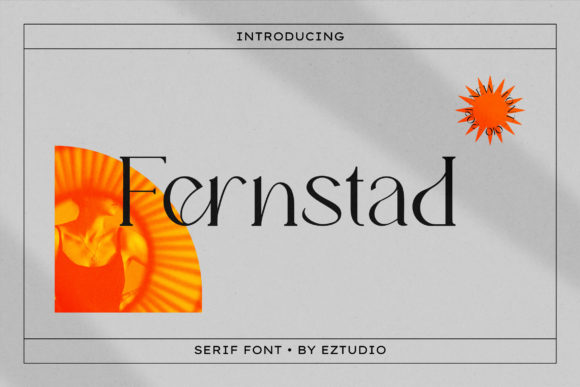
Fernstad Font: A Timeless Elegance for Sophisticated Designs
In the world of typography, fonts play a crucial role in conveying the tone and personality of a brand, product, or message. Among the numerous fonts available, Fernstad stands out as a thin, distinct, and elegant serif font that has captured the attention of designers and typography enthusiasts alike. In this article, we’ll delve into the world of Fernstad font, exploring its features, uses, and benefits, as well as provide insights into its versatility and applications.
What is Fernstad Font?
Fernstad is a carefully crafted serif font, characterized by its slender lines, refined details, and classic aesthetic. Its unique design makes it an excellent choice for a wide range of applications, from logos and wedding invitations to headings, t-shirts, letterhead, signage, labels, news, posters, badges, and more.
The font’s elegance and sophistication are attributed to its thoughtful design, which strikes a perfect balance between simplicity and refinement. Fernstad’s thin lines and delicate features ensure that it remains legible even at smaller sizes, making it an excellent choice for body text and captions.
Key Features of Fernstad Font
- Thin and elegant design: Fernstad’s slender lines and refined details create a sophisticated and classic look.
- Serif font: The font’s serif features add a touch of elegance and refinement, making it suitable for formal and creative applications.
- High legibility: Fernstad’s careful design ensures that it remains legible even at smaller sizes, making it suitable for body text and captions.
- Versatile: Fernstad can be used for a wide range of applications, from logos and branding to wedding invitations, headings, and more.
Uses of Fernstad Font
Fernstad’s versatility makes it an excellent choice for various applications, including:
- Logos and branding: Fernstad’s elegant design makes it an excellent choice for logos, particularly for luxury brands, high-end products, and services.
- Wedding invitations: The font’s refined features and classic aesthetic make it perfect for wedding invitations, save-the-date cards, and other formal event materials.
- Headings and titles: Fernstad’s bold and elegant design makes it suitable for headings, titles, and subtitles in various design materials, such as brochures, magazines, and newspapers.
- T-shirts and apparel: The font’s simple and elegant design makes it an excellent choice for t-shirts, hoodies, and other apparel.
- Letterhead and signage: Fernstad’s classic aesthetic and high legibility make it suitable for letterhead, signage, and other applications where professionalism is key.
- Labels and packaging: The font’s refined features and elegant design make it perfect for labels, packaging, and product design.
- News and editorials: Fernstad’s classic design and high legibility make it suitable for news articles, editorials, and other written content.
- Posters and flyers: The font’s bold and elegant design makes it perfect for posters, flyers, and other promotional materials.
- Badges and awards: Fernstad’s refined features and classic aesthetic make it suitable for badges, awards, and other recognition materials.
Benefits of Using Fernstad Font
The benefits of using Fernstad font are numerous, including:
- Elegance and sophistication: Fernstad’s refined features and classic aesthetic add a touch of elegance and sophistication to any design.
- Versatility: The font’s versatility makes it suitable for a wide range of applications, from logos and branding to wedding invitations and headings.
- High legibility: Fernstad’s careful design ensures that it remains legible even at smaller sizes, making it suitable for body text and captions.
- Professionalism: The font’s classic design and refined features make it perfect for professional applications, such as letterhead, signage, and business cards.
Tips for Using Fernstad Font
To get the most out of Fernstad font, consider the following tips:
- Pair with complementary fonts: Fernstad pairs well with sans-serif fonts, such as Arial or Helvetica, to create a harmonious and balanced design.
- Use for headlines and titles: Fernstad’s bold and elegant design makes it perfect for headlines, titles, and subtitles.
- Experiment with font sizes: Fernstad’s high legibility ensures that it remains readable even at smaller sizes, making it suitable for body text and captions.
- Add a personal touch: Consider adding a personal touch to your design by using Fernstad’s italic or bold variations.
In conclusion, Fernstad font is a timeless and elegant serif font that offers a wide range of applications and benefits. Its refined features, classic aesthetic, and high legibility make it perfect for logos, wedding invitations, headings, t-shirts, letterhead, signage, labels, news, posters, badges, and more. Whether you’re a designer, typography enthusiast, or simply looking for a font that exudes elegance and sophistication, Fernstad is an excellent choice.